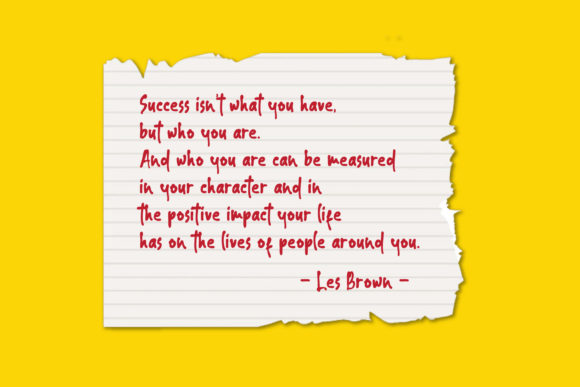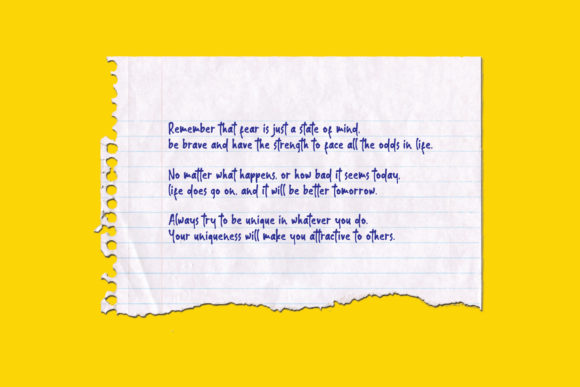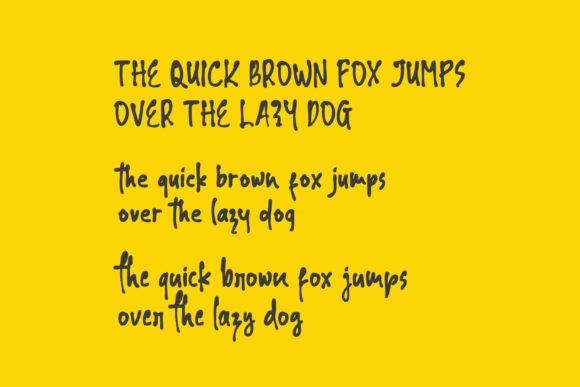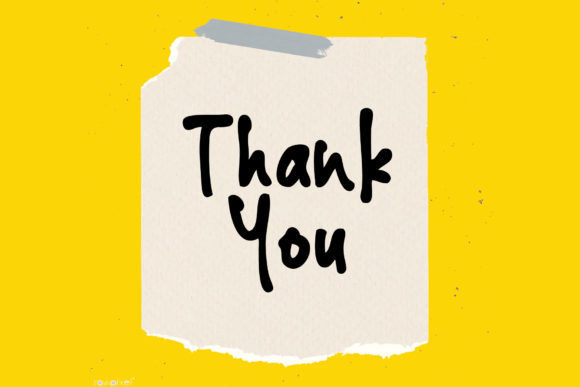
Introducing Custom Kids Font: The Perfect Choice for Creative Projects
Are you a designer, crafter, or DIY enthusiast looking for a unique and playful font to add a personal touch to your creations? Look no further than Custom Kids Font, a simple, quirky, and adaptable handwritten font that’s perfect for projects that require a relaxed and informal style.
The Charm of Custom Kids Font
Custom Kids Font boasts an informal style and casual vibe that’s sure to make it a go-to choice for designers and crafters alike. Its handwritten charm and quirky personality add a touch of whimsy to any project, making it ideal for creative endeavors that require a personal and approachable feel.
Key Features of Custom Kids Font
- Handwritten style: Custom Kids Font features a genuine handwritten style that’s perfect for adding a personal touch to your projects.
- Informal and casual: The font’s informal style and casual vibe make it perfect for creative projects that require a relaxed and approachable feel.
- Quirky and playful: Custom Kids Font has a quirky and playful personality that’s sure to add a touch of whimsy to your designs.
- Adaptable: The font is highly adaptable and can be used for a wide range of creative projects, from digital designs to print materials.
Use Cases for Custom Kids Font
Custom Kids Font is a versatile font that can be used for a variety of creative projects, including:
- Digital designs: Use Custom Kids Font to add a personal touch to your digital designs, such as social media graphics, blog posts, and website headers.
- Print materials: The font is perfect for print materials, such as brochures, flyers, and business cards.
- Crafting and DIY projects: Custom Kids Font is a great choice for crafting and DIY projects, such as handmade cards, gift tags, and scrapbooking.
- Kids’ projects: The font’s playful and quirky personality makes it perfect for kids’ projects, such as children’s book illustrations, educational materials, and kids’ party decorations.
Tips for Using Custom Kids Font
Here are some tips for using Custom Kids Font in your creative projects:
- Pair with other fonts: Experiment with pairing Custom Kids Font with other fonts to create a unique and visually appealing design.
- Use for headings and titles: The font’s bold and playful personality makes it perfect for headings and titles.
- Add a personal touch: Use Custom Kids Font to add a personal touch to your designs and make them stand out.
Custom Kids Font is a simple, quirky, and adaptable handwritten font that’s perfect for creative projects that require a relaxed and informal style. Its charming and playful personality makes it a great choice for designers, crafters, and DIY enthusiasts alike. Whether you’re working on digital designs, print materials, or crafting and DIY projects, Custom Kids Font is sure to add a personal touch and make your creations stand out.